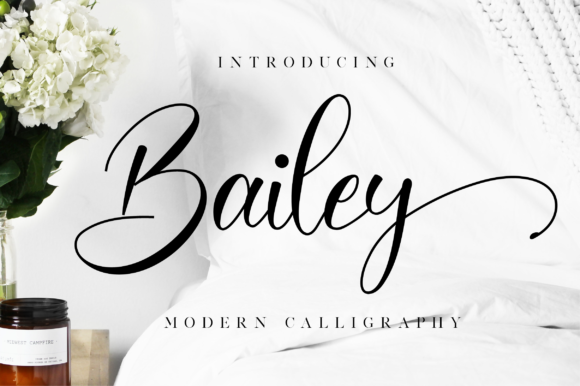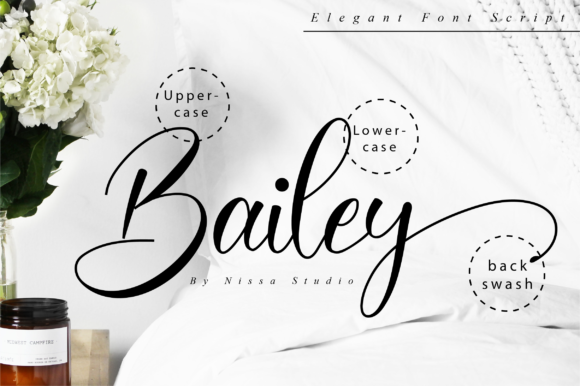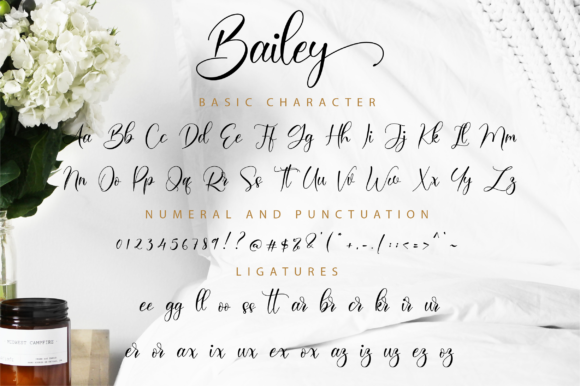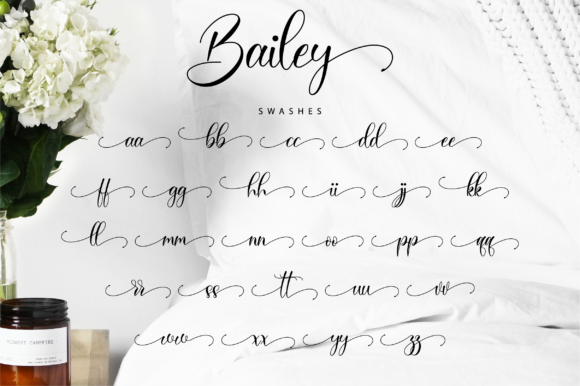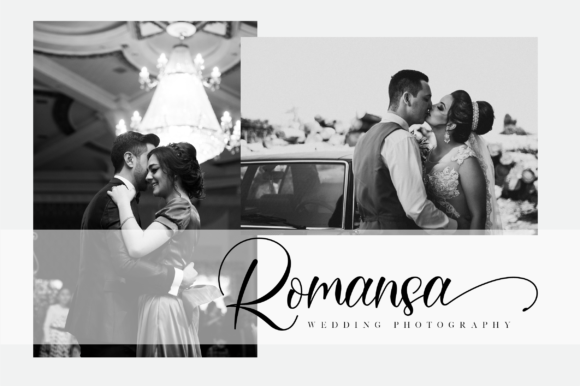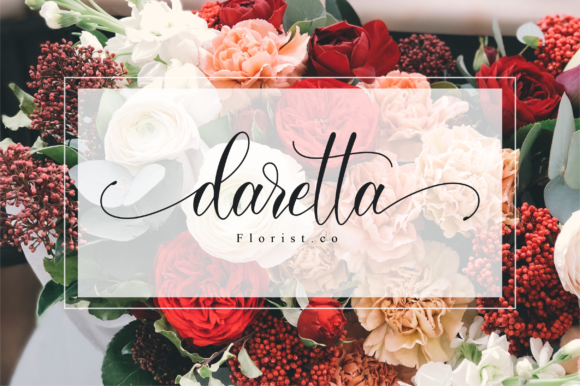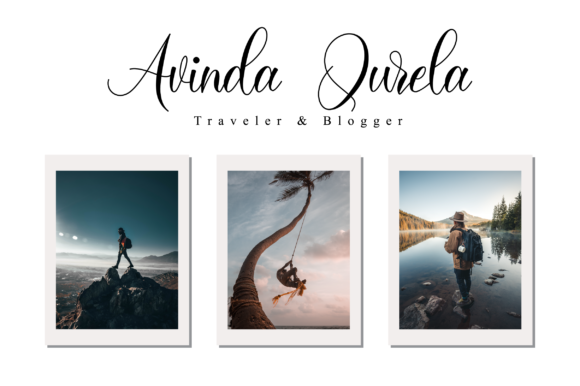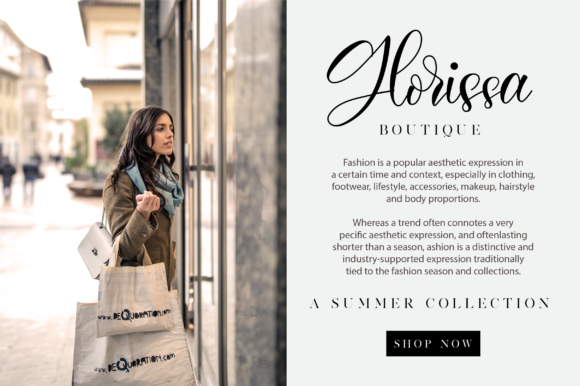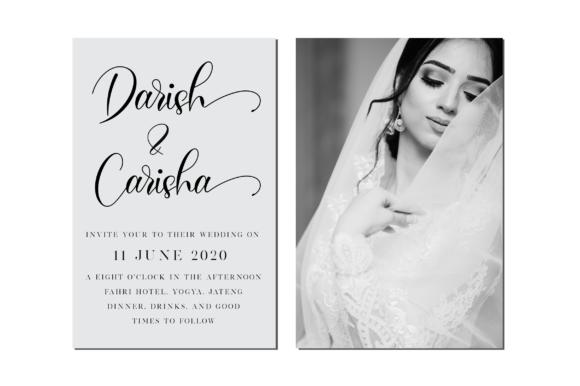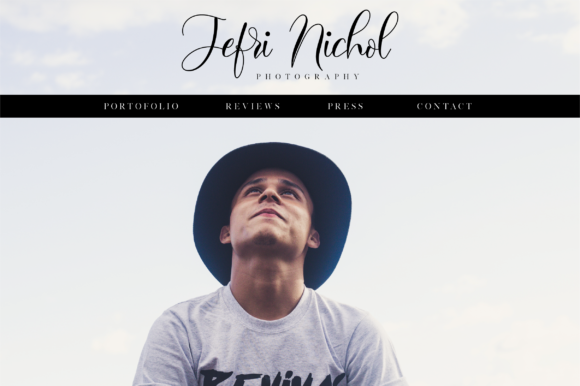
Bailey Font
About Bailey Font
Bailey is a beautiful script that is classy, elegant, and modern. It is perfectly suited for a wide variety of projects!